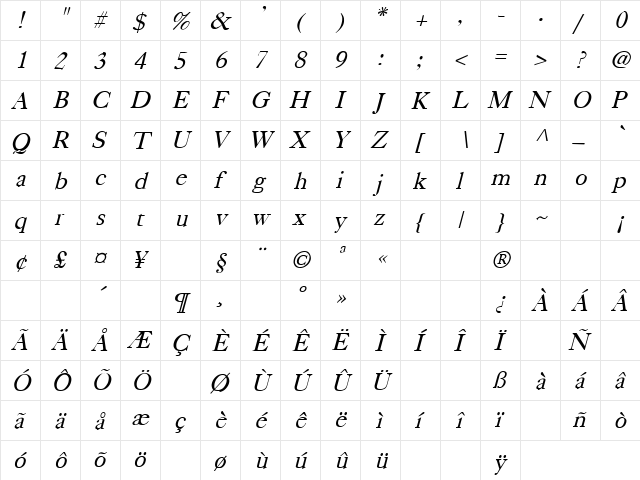
Sick As A Dog 5 Italic
Design Context for Sick As A Dog 5 Typeface
Sick As A Dog 5 is a composed and adaptable typeface that performs quietly and consistently across a wide range of design contexts. Its italic angle brings a sense of urgency and motion to the letterforms.
Pro Tip: Use Sick As A Dog 5 for emphasis, pull quotes, and subheadings where its slanted energy can add rhythm to the layout.